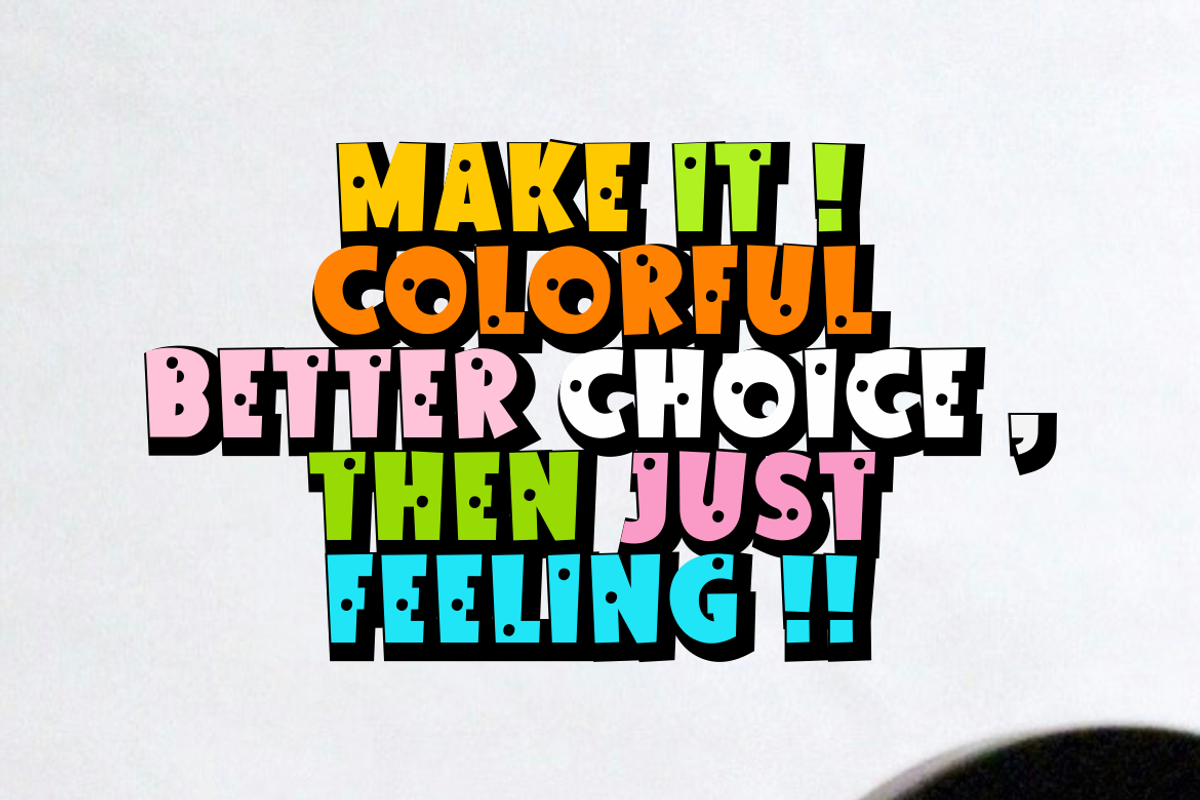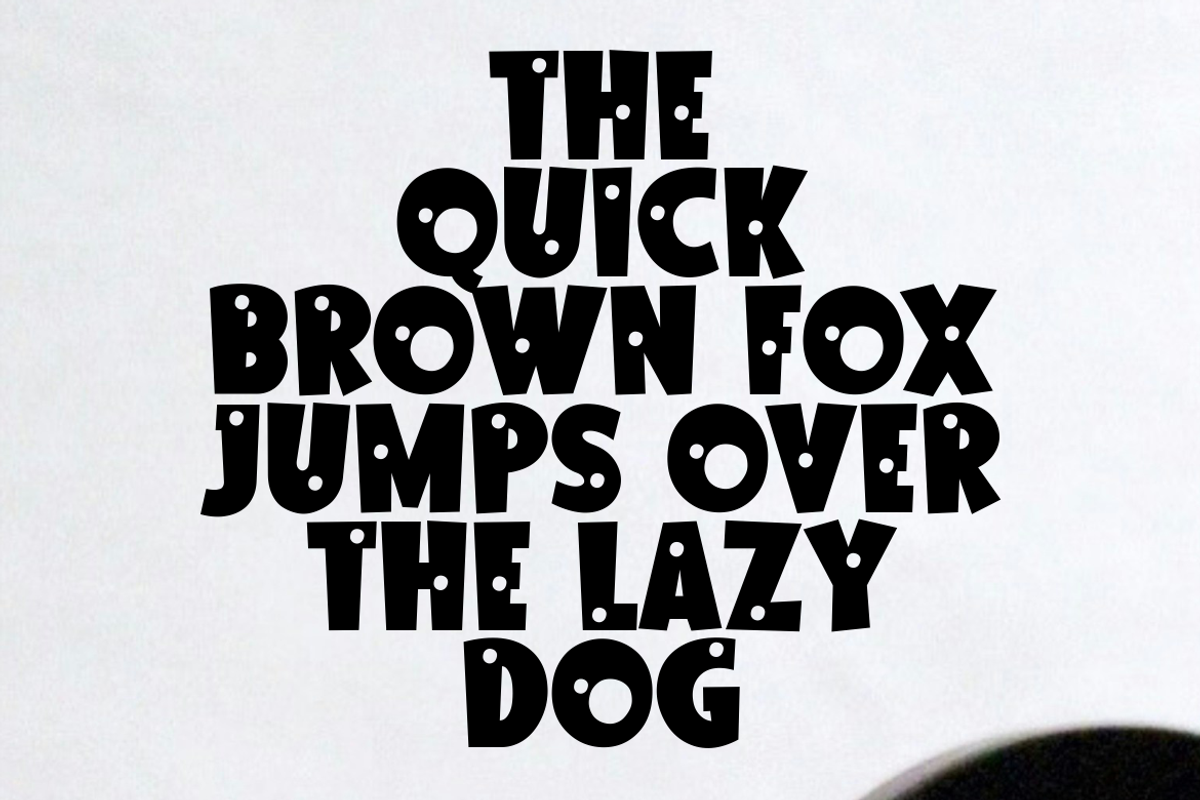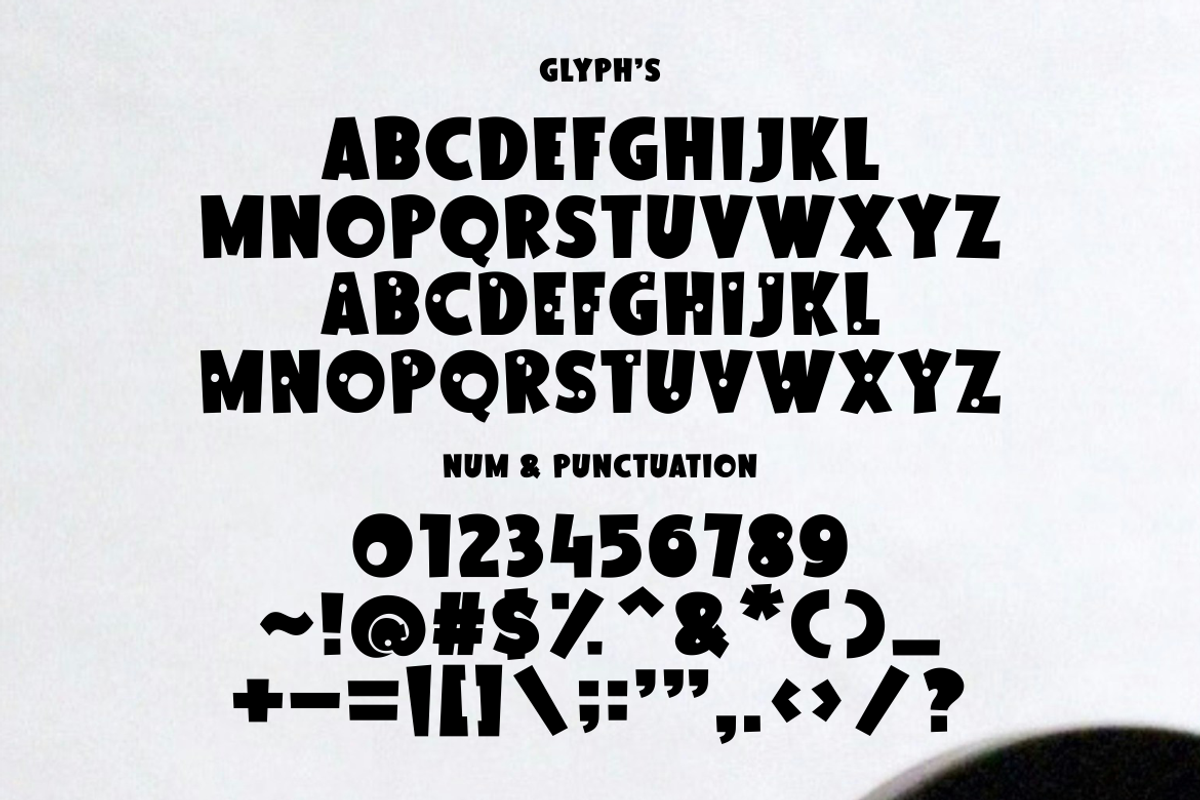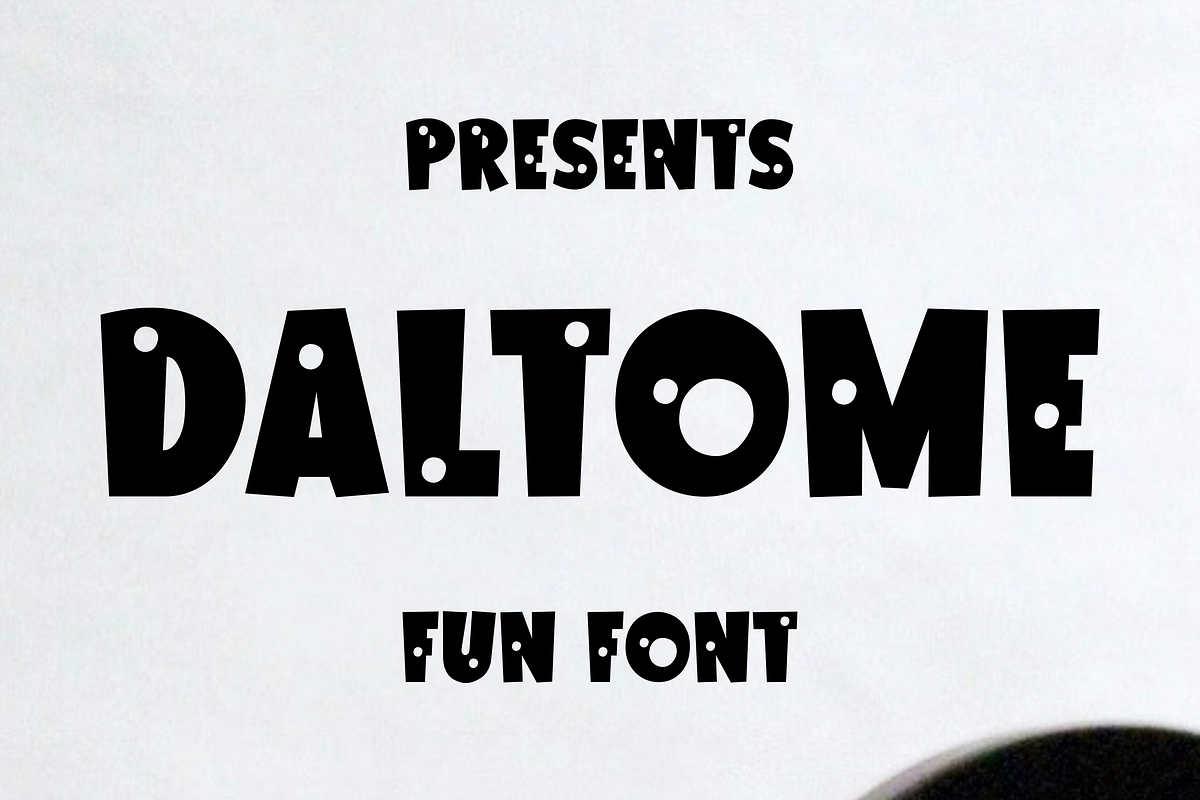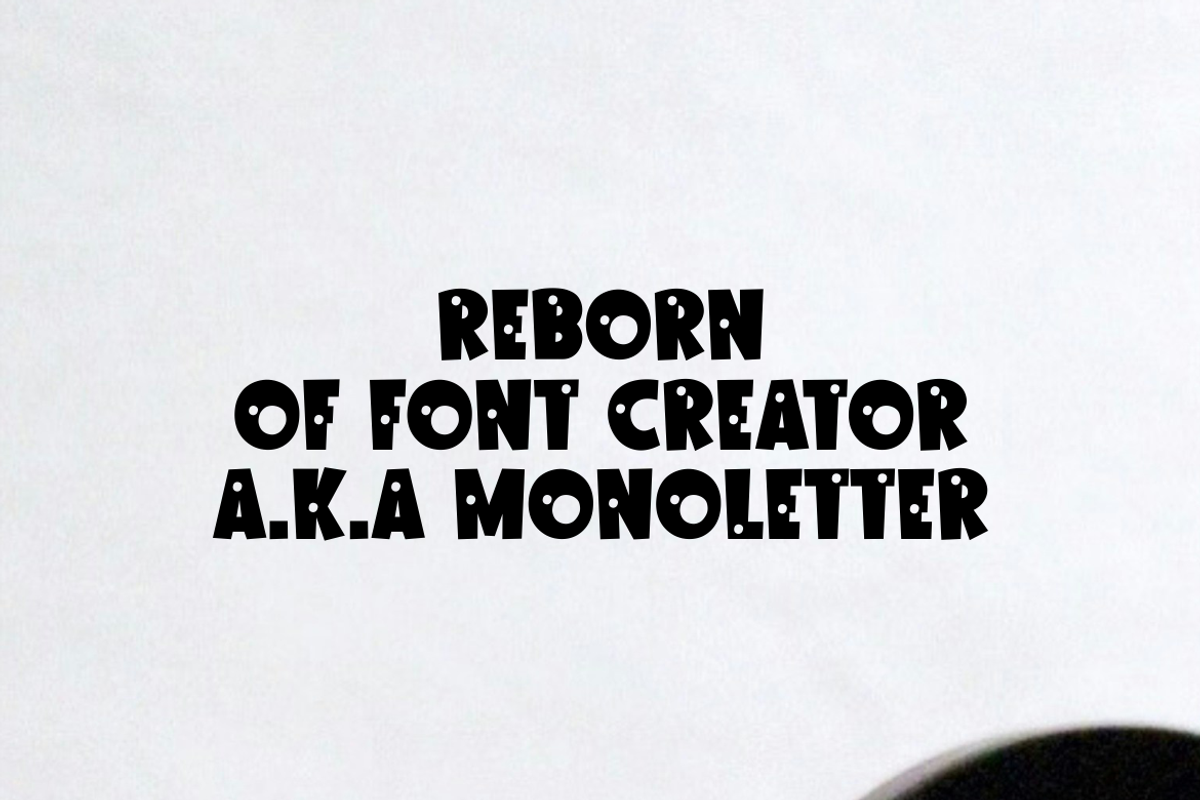
Daltome Font
Immerse yourself in the vibrant, striking world of Daltome, a one-of-a-kind display font that sparks creativity and fun. With a revolutionary style that dances on the line between groundbreaking typography and playful cartoon design, Daltome is the muse for all font lovers seeking design inspiration. Daltome encourages you to design your way, aiding you in creating unique, visually appealing works. This isn’t simply another addition to your font library – Daltome is a lively, fun, creative journey waiting for you!